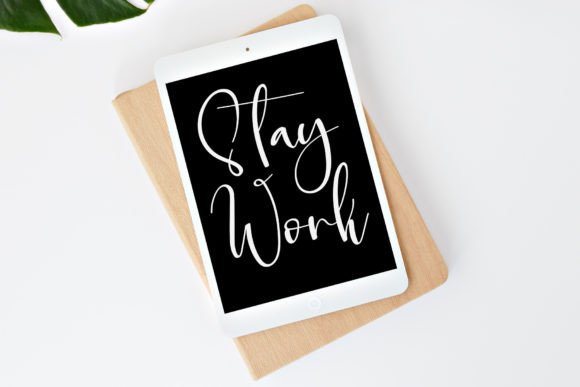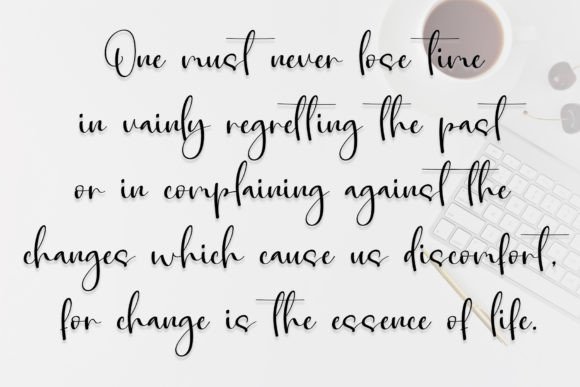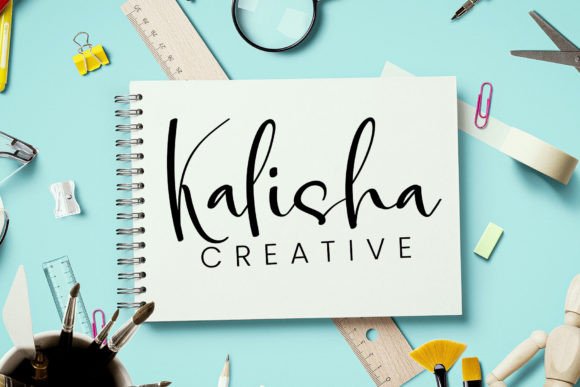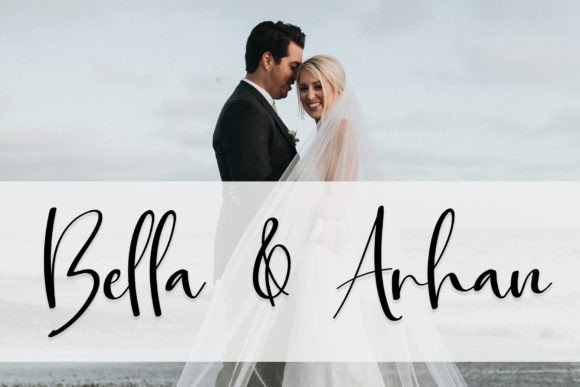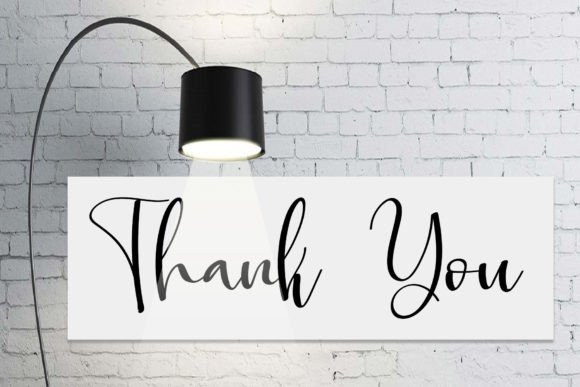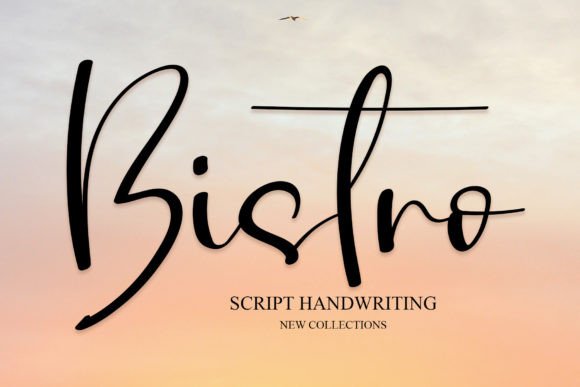
The Bistro Font: Elevate Your Designs with Elegance
Have you ever been in the midst of working on a design project, only to find yourself stuck on one thing: the perfect font? I recall a particularly frustrating experience while designing a wedding invitation suite. My client wanted something elegant, modern, and utterly unique. After hours of scouring font libraries, I stumbled upon the Bistro font. It was love at first sight! With its refined handwritten aesthetic, Bistro instantly elevated my design and exceeded my client’s expectations.
An Honest Review of Bistro Font
- ✨ Beautifully Refined Handwritten Aesthetic: Bistro boasts a classy and modern look that’s perfect for a variety of design projects.
- ✅ Versatility: This font is ideal for logos, branding, invitations, stationery, wedding designs, social media posts, and much more.
- 🔍 PUA Encoded for Easy Access: Bistro is PUA encoded, making it easy to access all the amazing glyphs and ligatures.
While Bistro is an exceptional font, there are a few minor considerations to keep in mind:
- ⚠️ Limited Use in Certain Contexts: Due to its elegant nature, Bistro might not be the best fit for very casual or playful projects.
- 🤔 Requires Some Exploration: To get the most out of Bistro, especially its OpenType features, you might need to spend a bit of time exploring its capabilities.
The Story Behind Bistro Font
Bistro was created with the intention of capturing the essence of modern elegance. Inspired by the classic typography of French bistros, its designer aimed to create a font that exudes sophistication and refinement. The result is a versatile typeface that can elevate any design project.
Q: What makes Bistro font unique?
A: Bistro’s uniqueness lies in its beautifully refined handwritten aesthetic, combined with its PUA encoding for easy access to glyphs and ligatures.
Q: Is Bistro suitable for body text?
A: While Bistro is stunning for headings and titles, its elegance and uniqueness might make it less suitable for lengthy body text. It’s best used for accentuating key parts of your design.